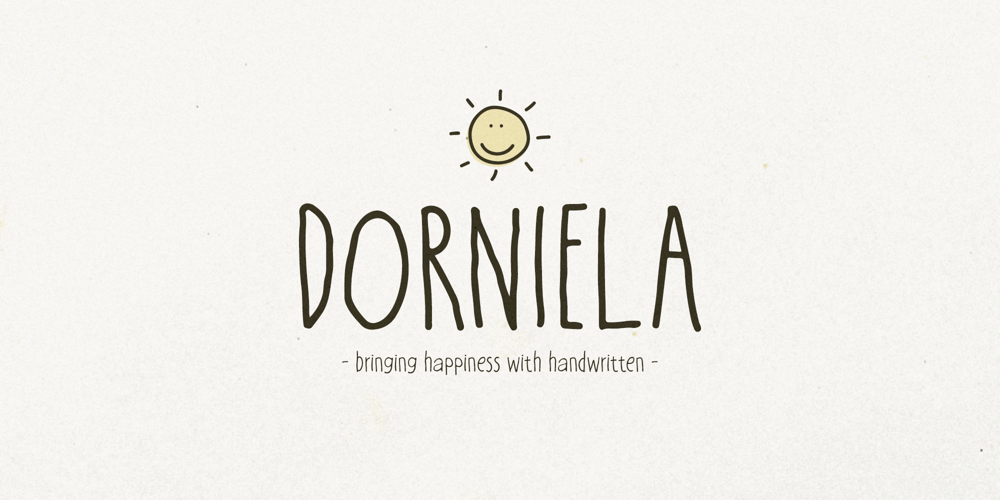
Dorniela Font Family was designed by Gholib Tammami and published by Gholib Tammami. Dorniela contains 1 styles and family package options. Introducing Dorniela, a charming and delightful font that brings a whimsical touch to your creative projects. With a name that evokes the magic of fairy tales and the essence of all things cute, Dorniela is your ticket to a world of adorable design possibilities.